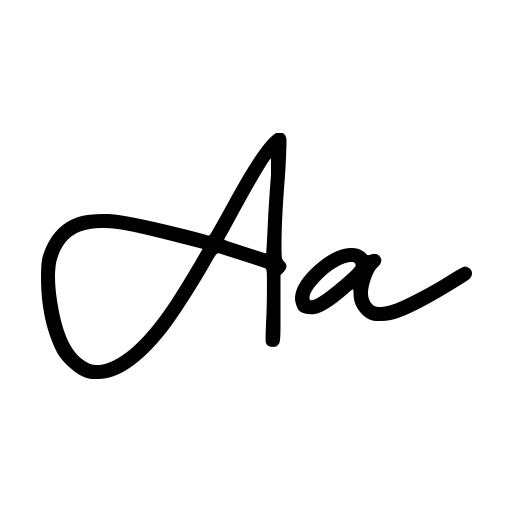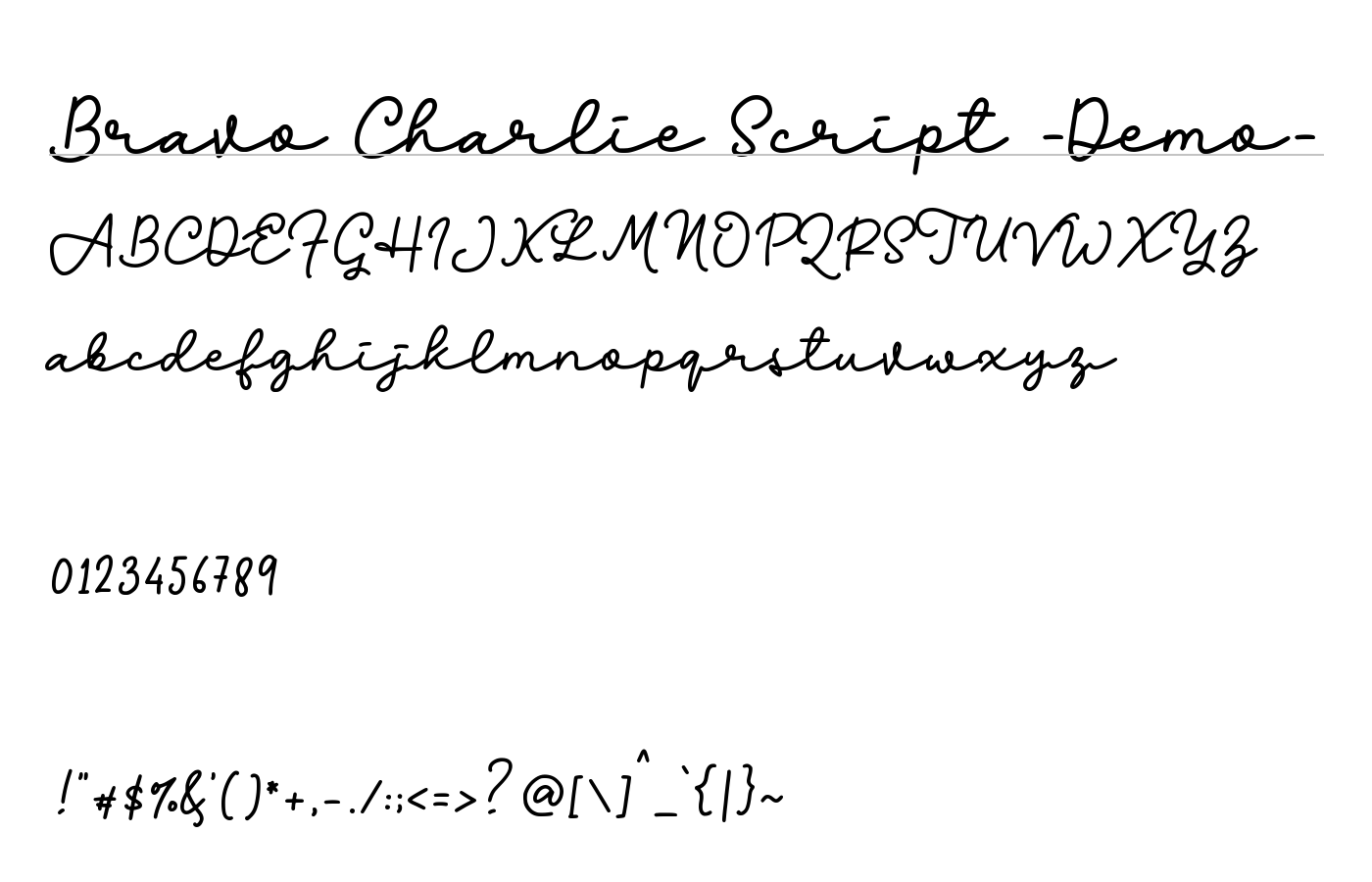
Bravo Charlie Script -Demo- is a lively, handwritten script font with smooth, flowing strokes that convey a casual and approachable feel. Its balanced x-height and clean letterforms make it highly legible while maintaining a warm, personal touch, perfect for creative branding, invitations, and friendly editorial designs. This font shines in projects that seek an inviting, informal charm without sacrificing clarity.
Bravo Charlie Script -Demo- Font
About Bravo Charlie Script -Demo- Font
| Designer | Abo Daniel 2019 |